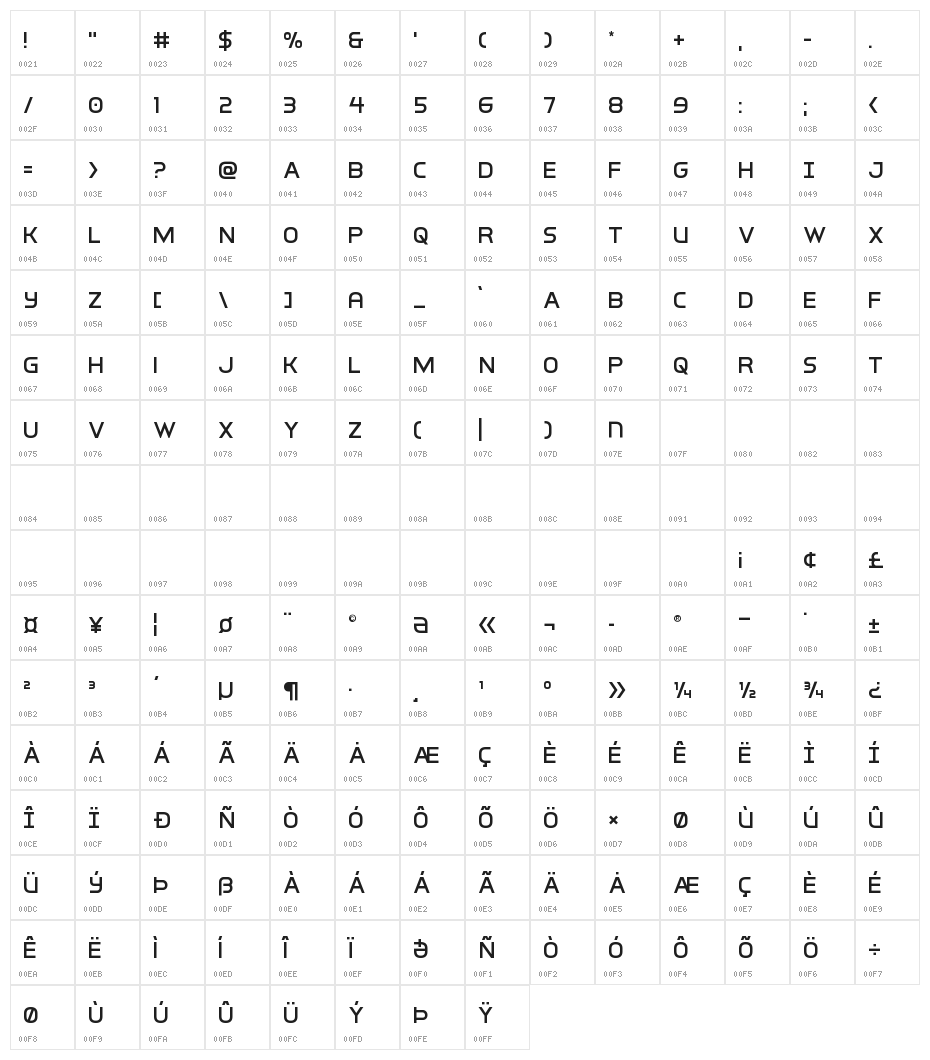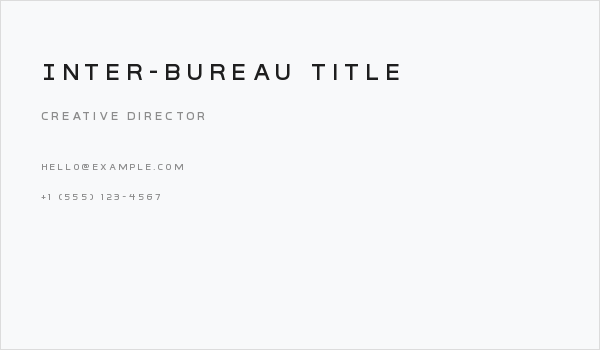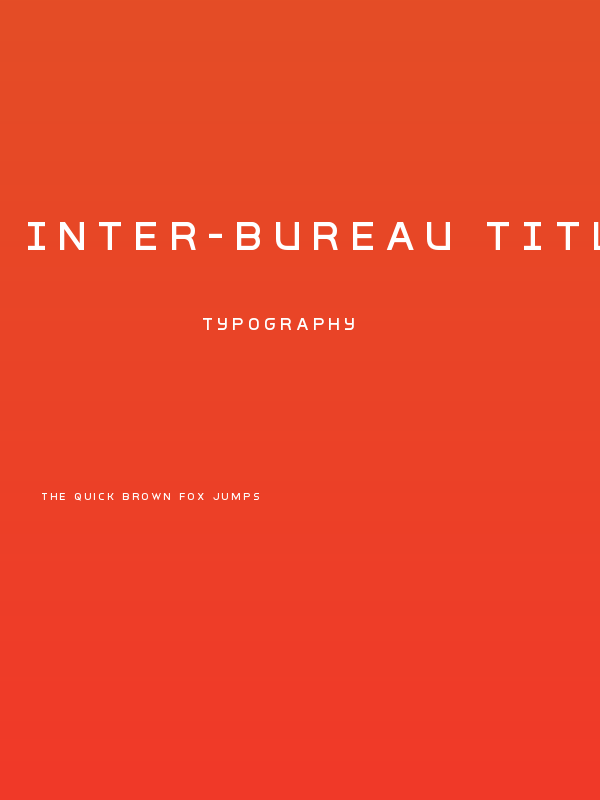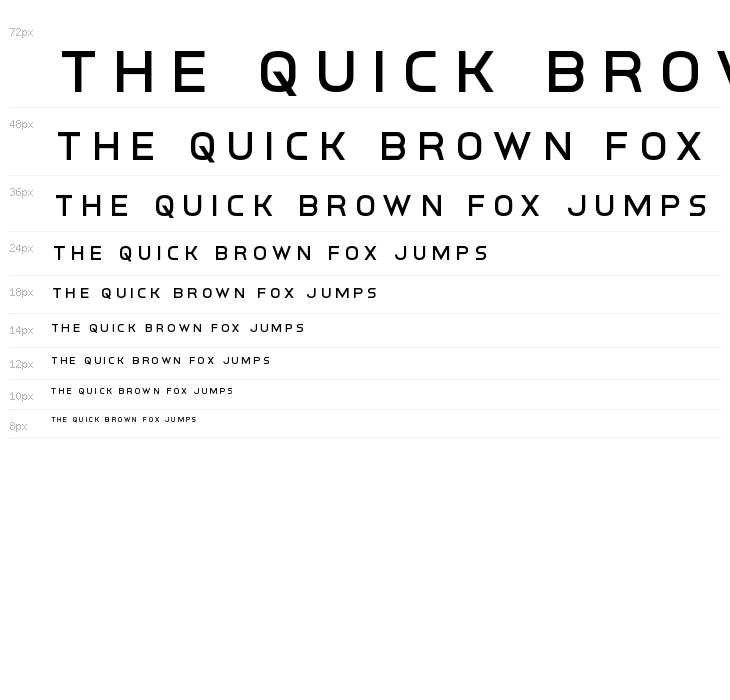
Inter-Bureau Title Font
Inter-Bureau Title Description
This font features a clean, modern design with a geometric structure. The characters are uniform in width, providing a balanced and harmonious appearance. The uppercase letters are bold and assertive, while the lowercase letters maintain a consistent style that complements the uppercase. The numerals are clear and distinct, making them easy to read. Special characters are well-integrated, maintaining the overall aesthetic. The font's simplicity and clarity make it suitable for a wide range of applications, from digital interfaces to print media.
| Use Case | Headlines, Logos, Digital Interfaces |
| Proposed Projects | Ideal for branding, digital interfaces, signage, and editorial design. |